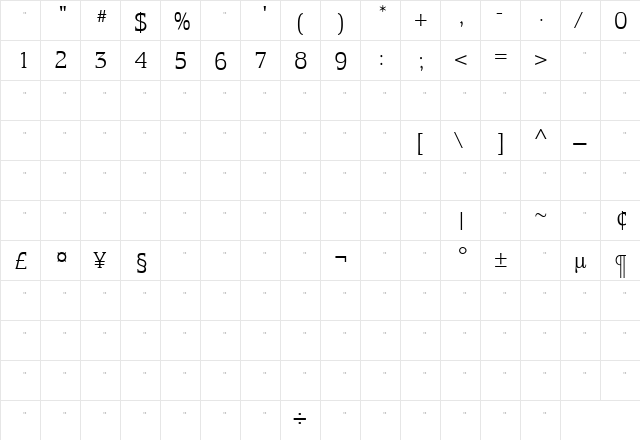
EquestrienneLightTab Roman
Design Context for EquestrienneLightTab Typeface
EquestrienneLightTab offers clean, dependable letterforms without strong stylistic allegiance, making it a practical choice for designers who need flexibility. The delicate stroke weight brings airiness and refinement to layouts.